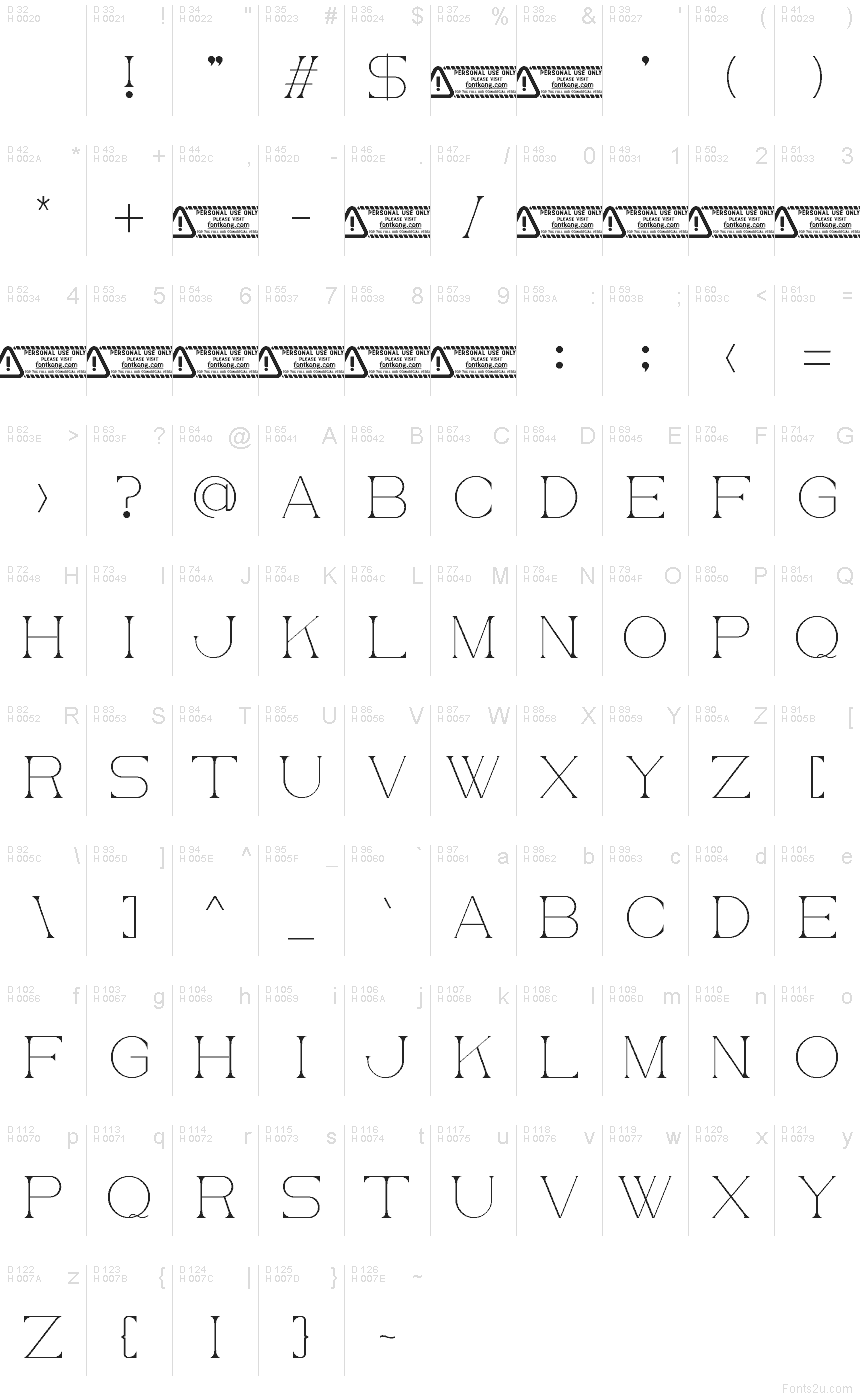
\nCharla font designed by Kong Font is a light expanded serif typeface that smooths down the rough edges you need in your creations. The font displays elegance via its geometric influence and retro appeal, all balanced with contrast between thick and thin elements which further refines its sophisticated design.
Use Charla for wedding invitations, greeting cards, business card designs, logo projects, packaging labels, stationery decorations, book or magazine covers. Websites and blogs would also look much improved if they make use of this free font.